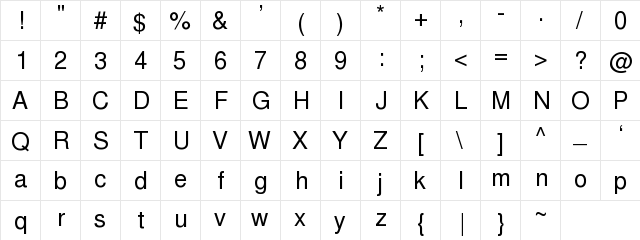
malayalam Regular
Design Context for malayalam Typeface
malayalam takes a measured approach to typography — its balanced proportions and neutral character make it a reliable workhorse for both digital and print work.
Pro Tip: Use malayalam in both headline and body roles to test its range before committing to a single application.